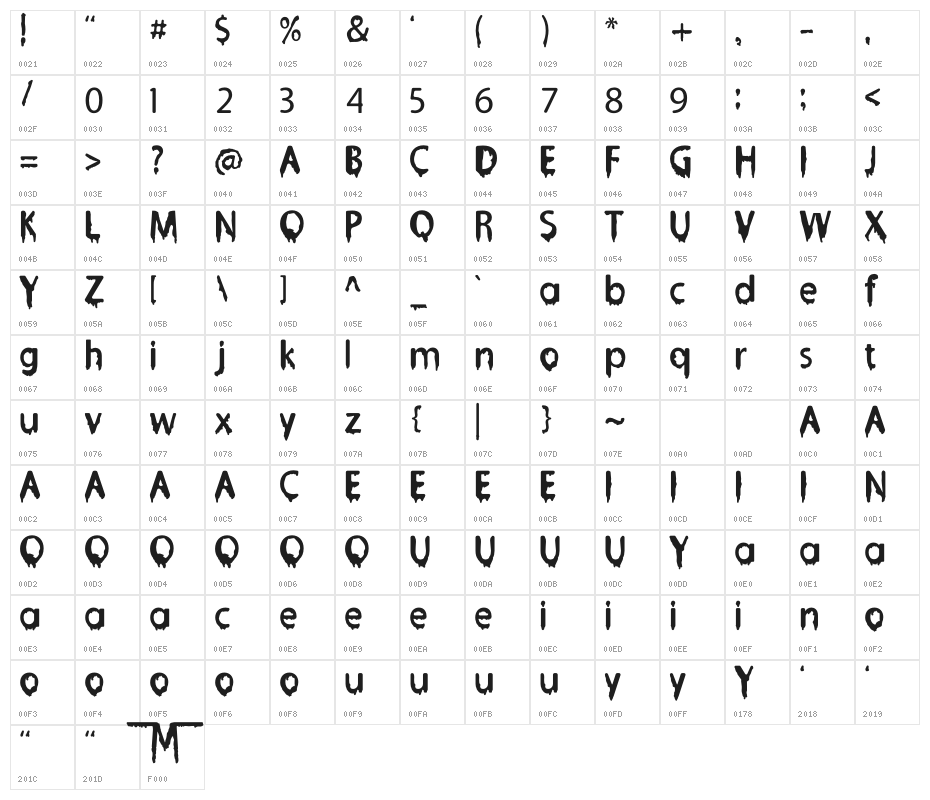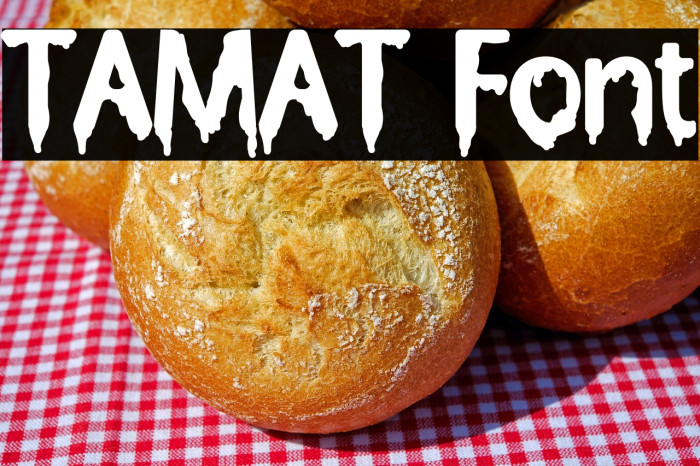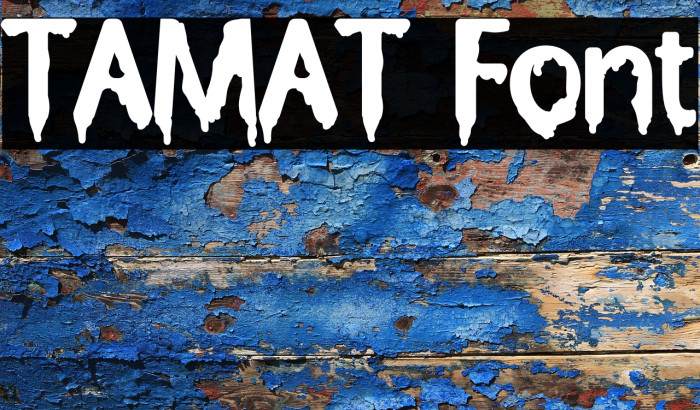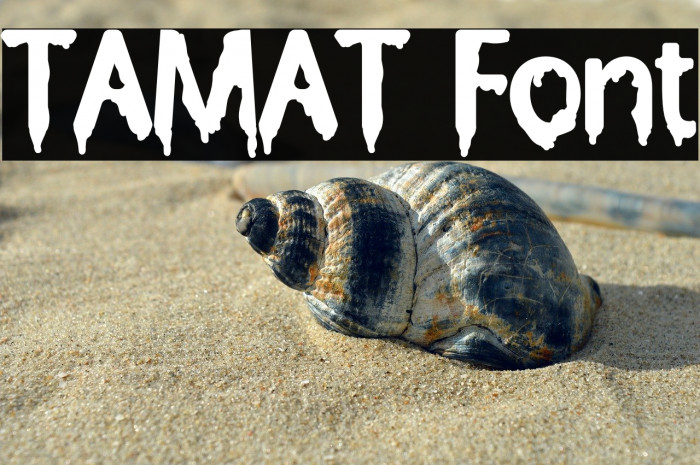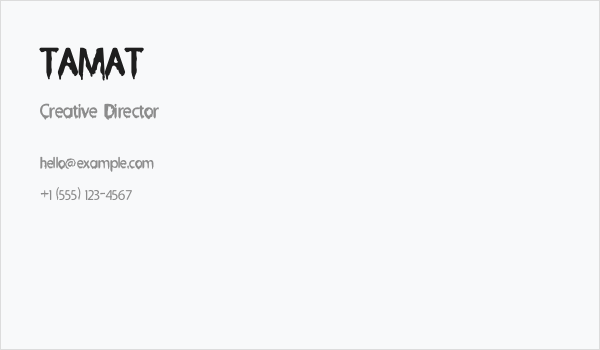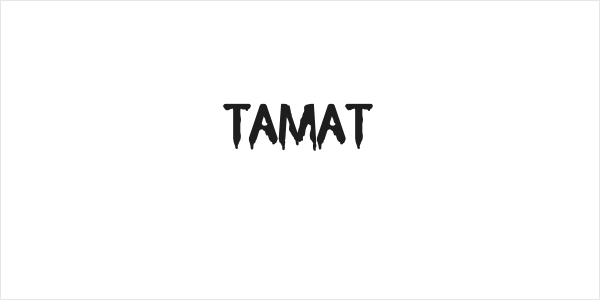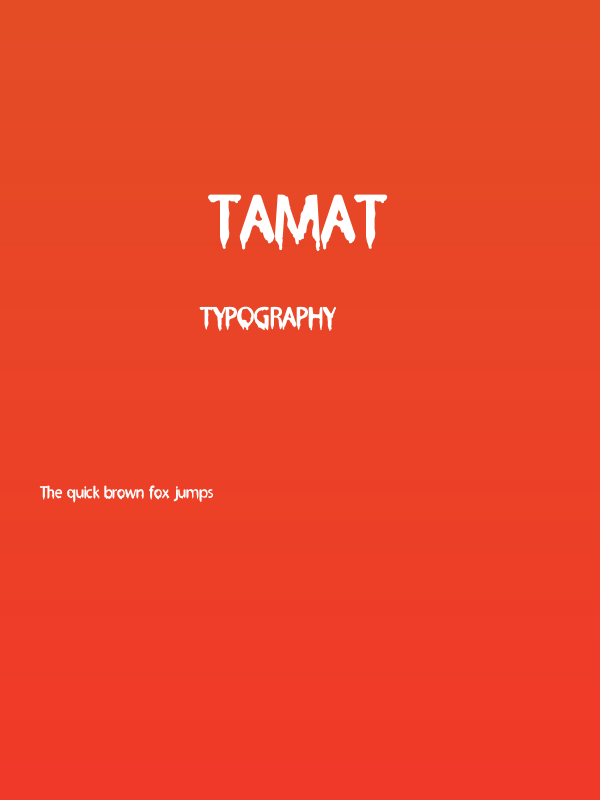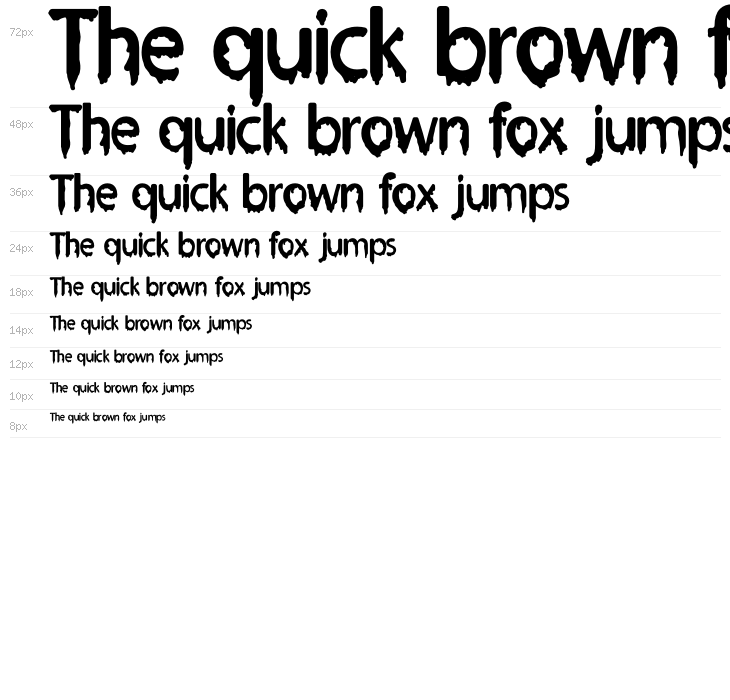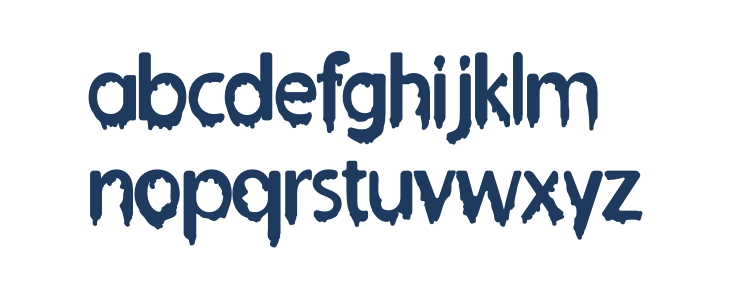
TAMAT Font
TAMAT Description
This font features a unique, dripping effect that gives it a spooky and eerie appearance, reminiscent of melting wax or dripping paint. The uppercase and lowercase letters maintain a consistent style, with each character appearing as if it is slowly melting. The numbers and special characters follow the same design, ensuring a cohesive look across all glyphs. This font is perfect for creating a dramatic and unsettling atmosphere, making it ideal for Halloween-themed projects or horror movie posters. The bold and irregular strokes add to its distinctiveness, ensuring it stands out in any design.
Use CaseHeadlines, Posters, Themed Events
Proposed ProjectsHalloween invitations, horror movie posters, themed event flyers.